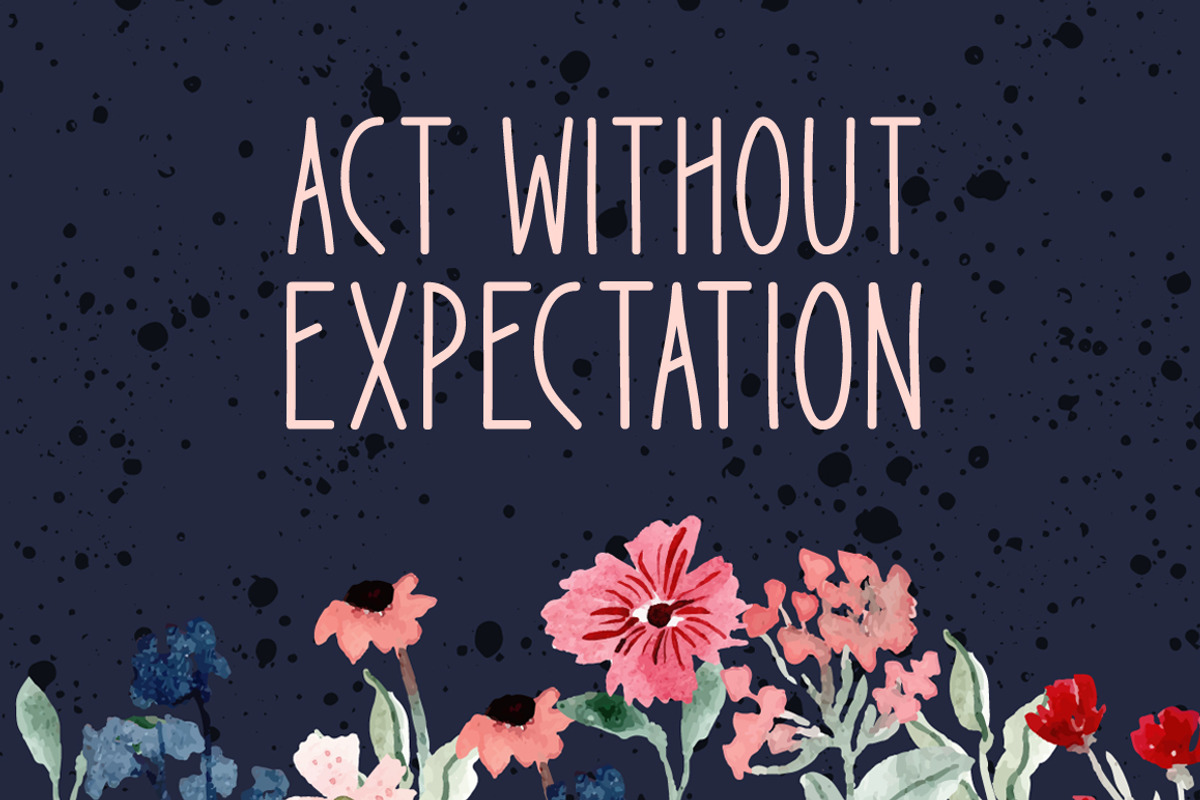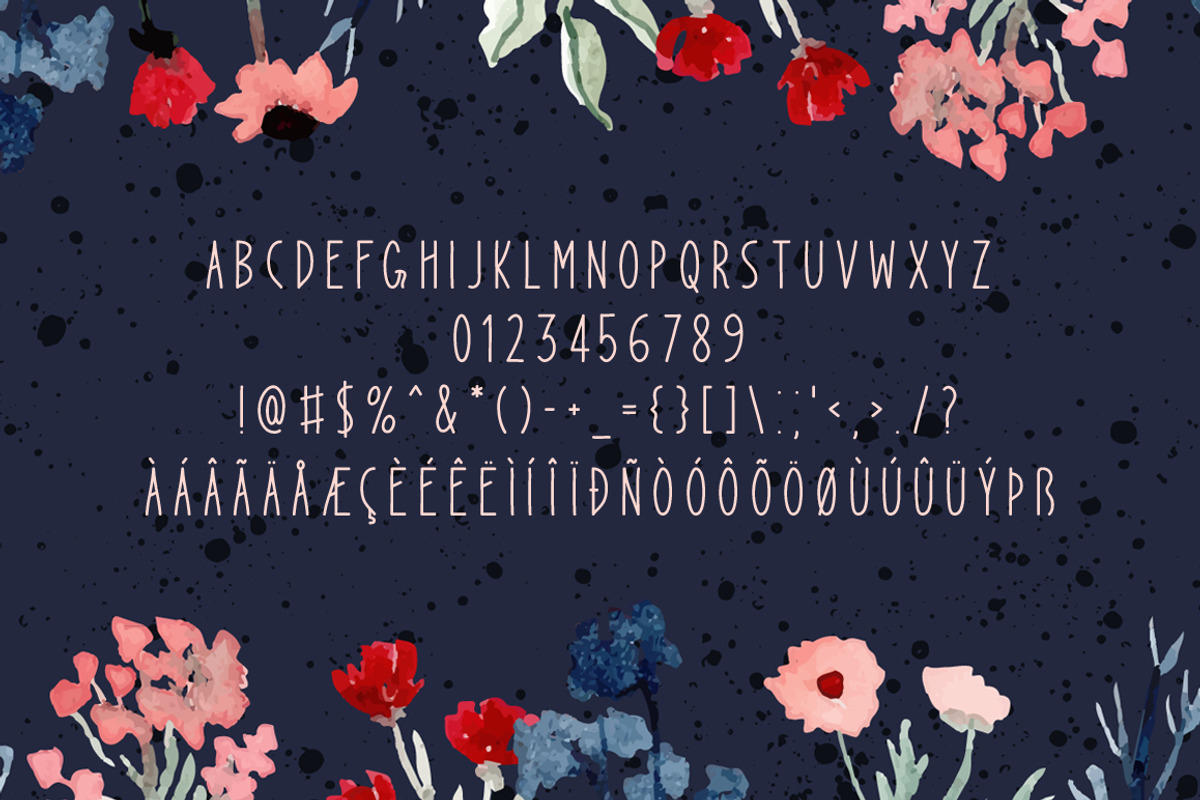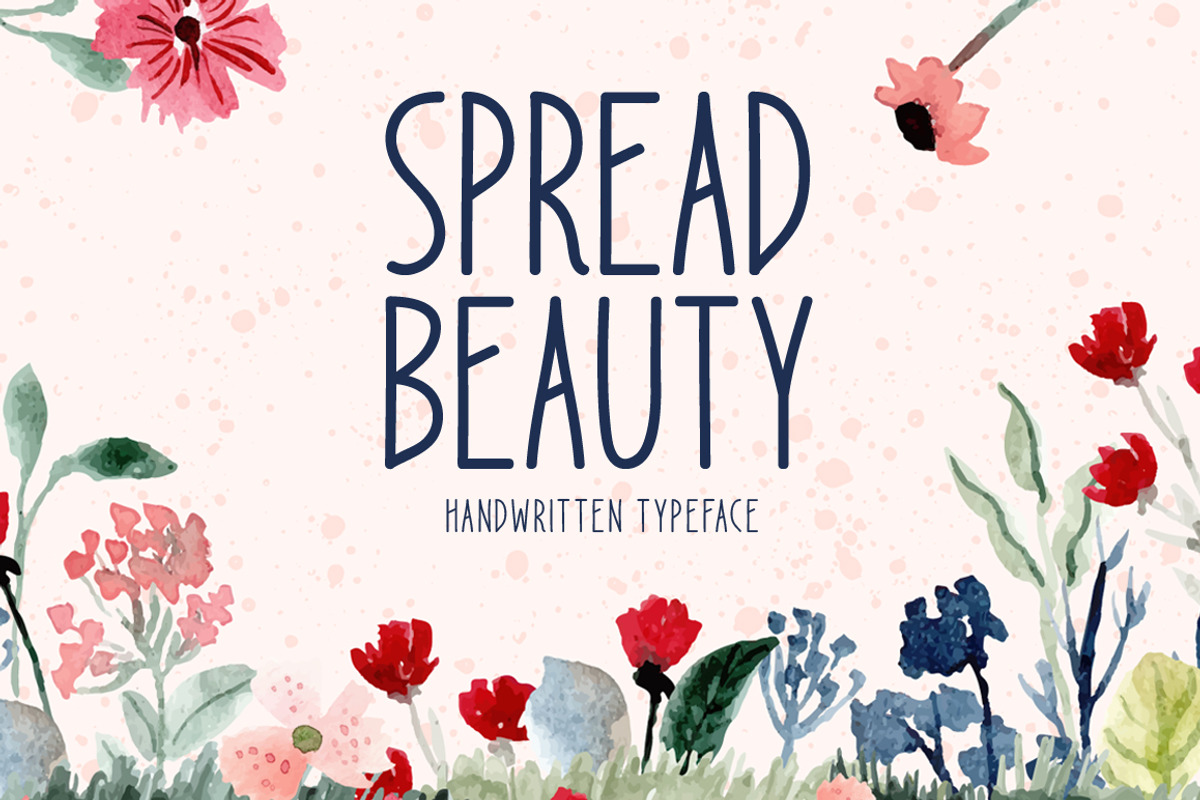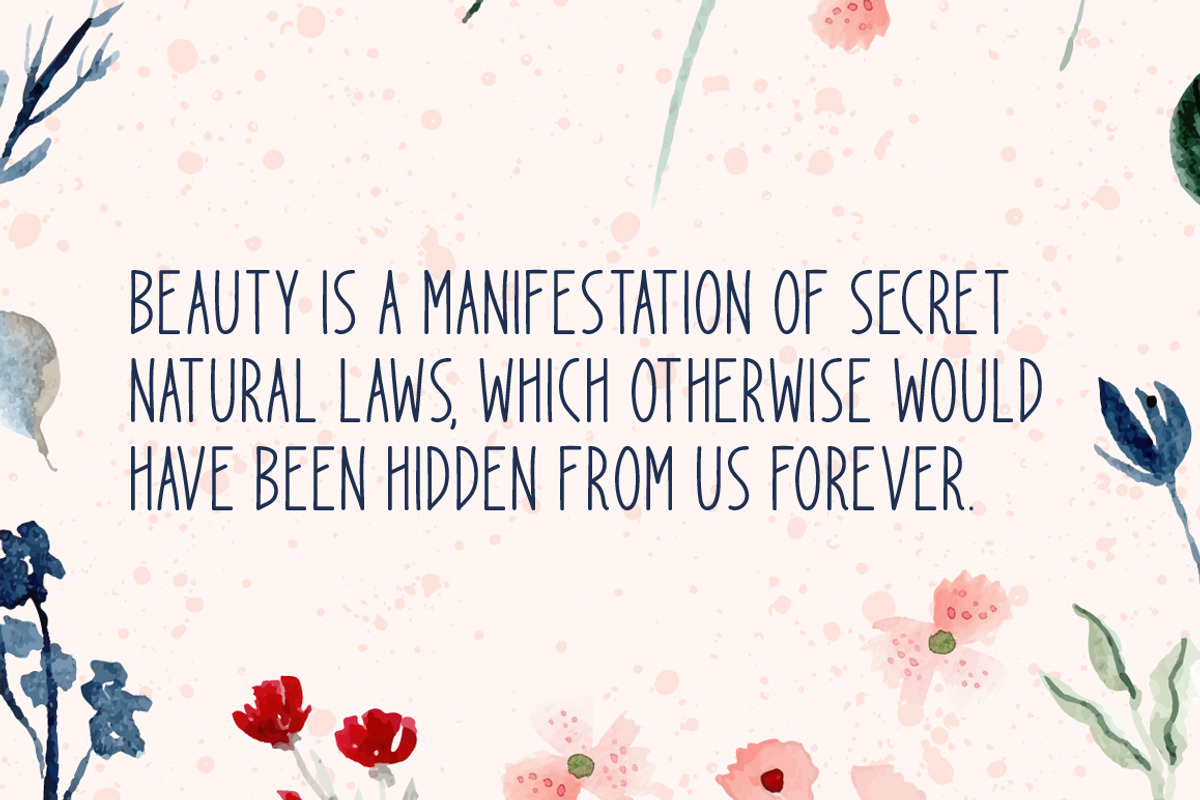
Spread Beauty Typeface
Introducing Spread Beauty!
Spread Beauty is a brand new handwritten font. Spread Beauty is perfectly suited for stationery, logos, t-shirt, paper, print design, website header, photo frame, flyer, music cover, poster, image slider, and much more.
Includes a range of multilingual support